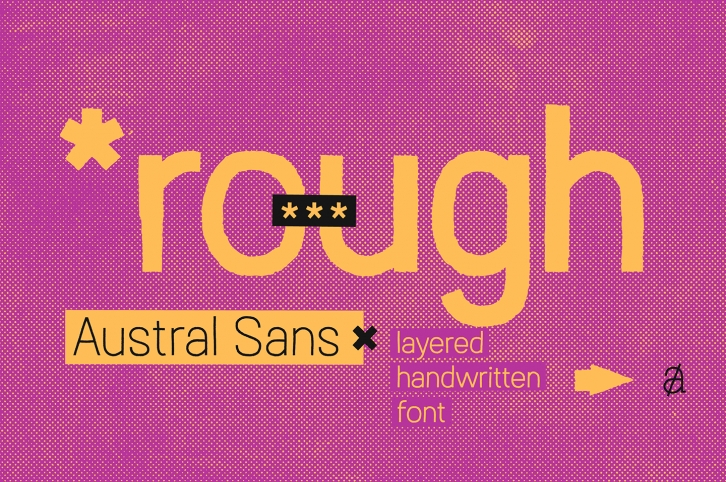
Austral Sans Rough FONT Download
Austral Sans Rough is a gorgeous font that was realeased on March 30, 2018. The font can be used in many style contexts and design environments. Perfect for invitations, magazines, websites, logos, and more! It was designed by antipixel and the file size is 9.48 MB. Thanks for checking out this font!